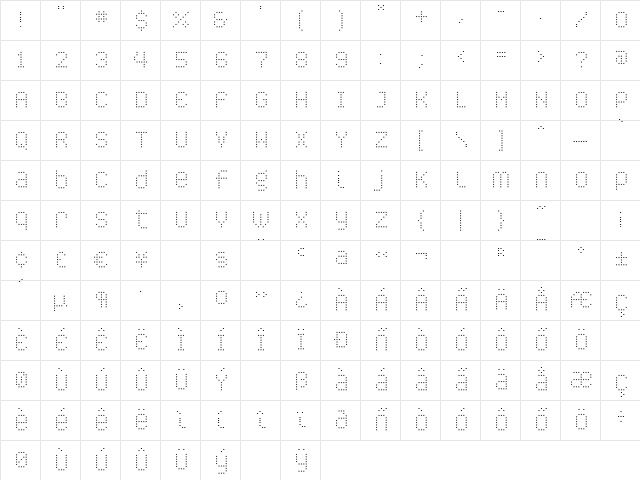
Caliper LightCubed Free Font
Caliper LightCubed
Style: LightCubed
Foundry: YouWorkForThem
Designer: Michael Cina
Design Context for Caliper
Caliper is a composed and adaptable typeface that performs quietly and consistently across a wide range of design contexts. Its slender proportions lend an understated elegance to any composition.